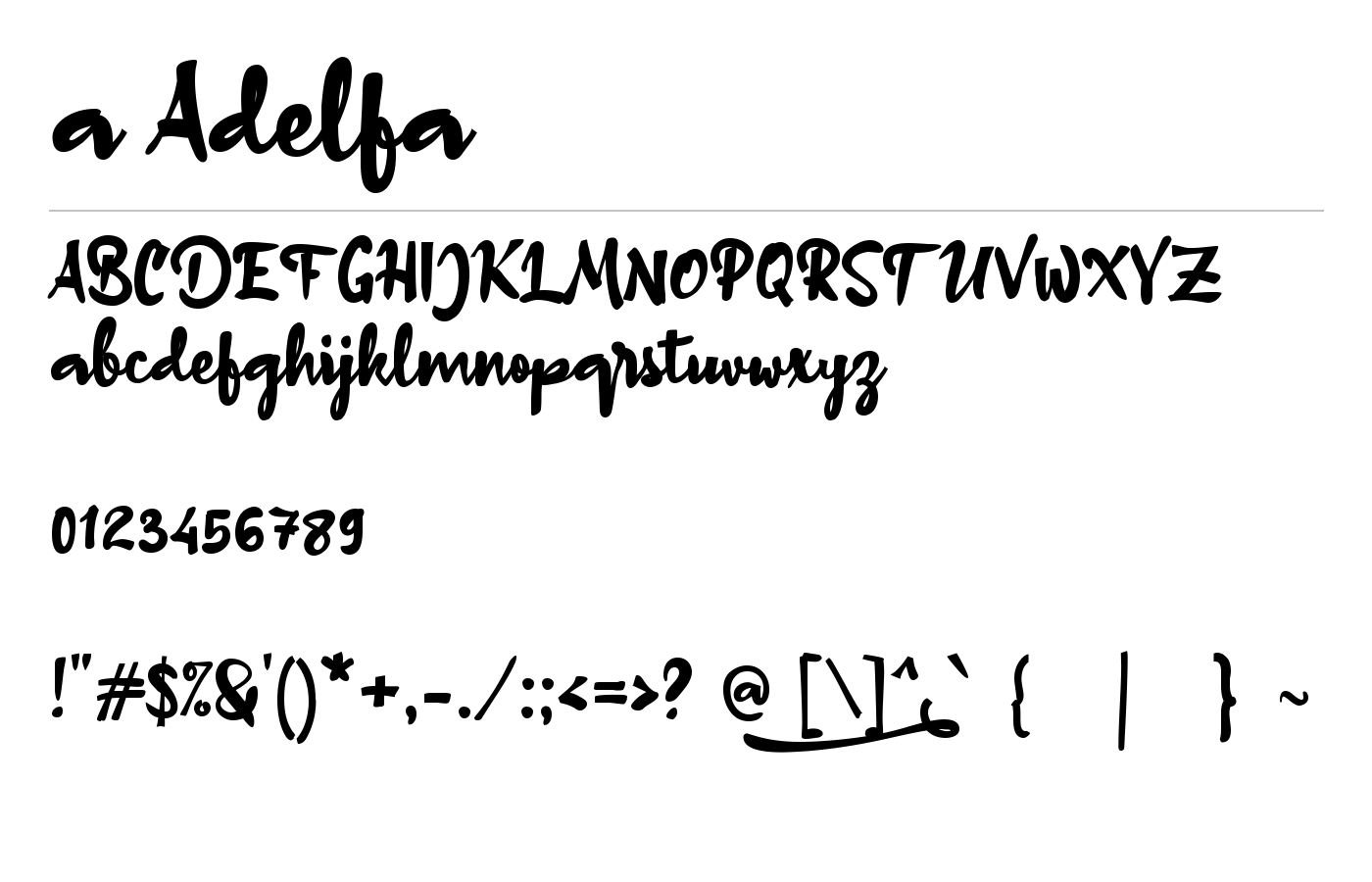
Adelfa is a lively and expressive script font with a hand-drawn, brush-like style that combines playful curves and strong, confident strokes. Its moderate weight and casual flair make it ideal for projects that want to convey creativity and warmth, such as branding, invitations, or promotional materials. This font works well in headlines and decorative uses where a personal, artistic touch is desired.
a Adelfa Font
About a Adelfa Font